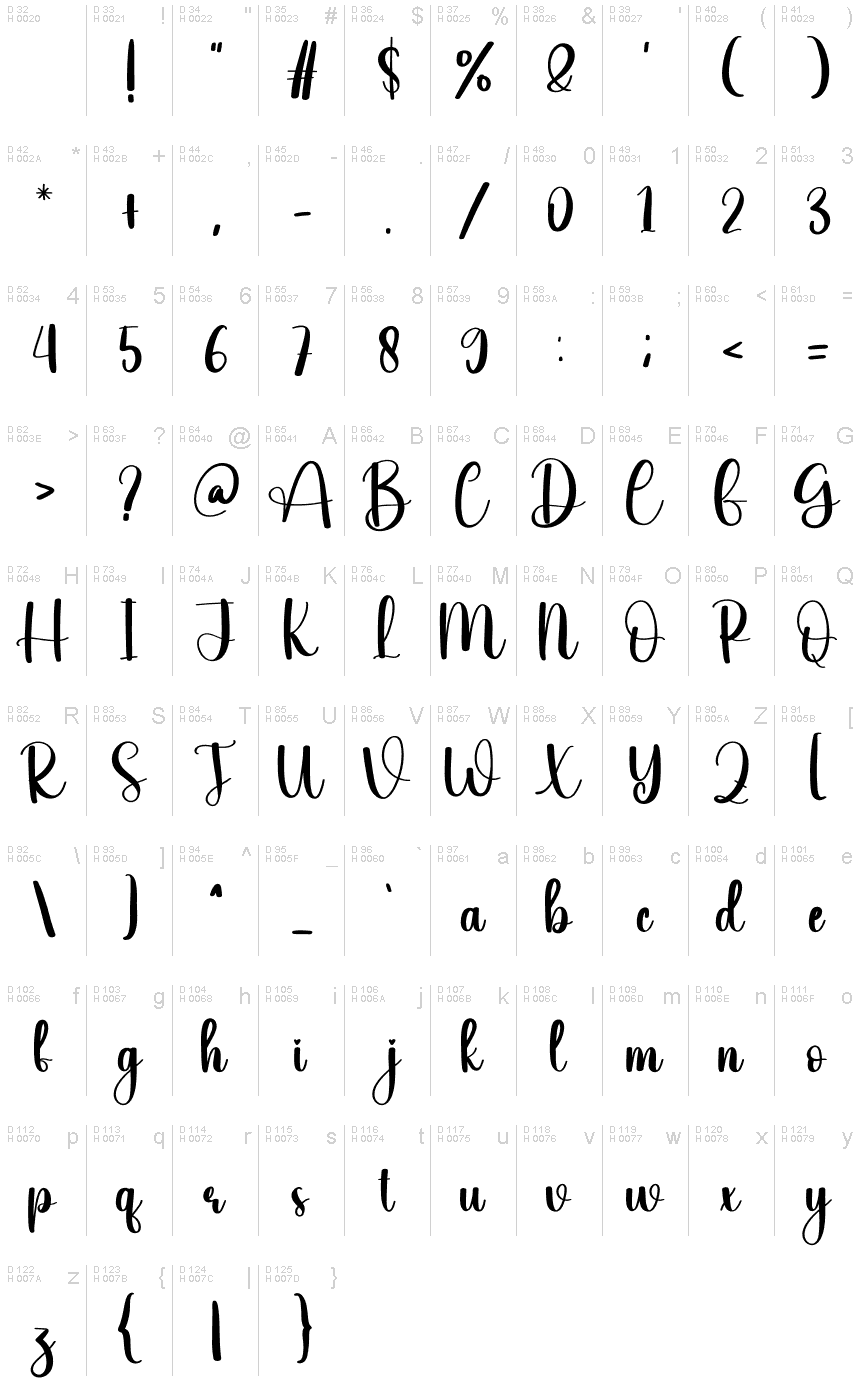
Wedding Dress
Wedding Dress, a creation by Scratchones, is a font that embodies the grace and elegance of calligraphy. Its sweeping curves and fine lines evoke the sophistication of handwritten invitations, making it an impeccable choice for those special occasions that demand a touch of class. The fluidity of its characters adds a personal and intimate feel to any project, while its balanced proportion ensures legibility and harmony in design.
Crafted with meticulous attention to detail, Wedding Dress stands out for its aesthetic appeal that captures the timeless beauty inherent in traditional calligraphy. Its style is versatile enough to enhance not just wedding stationery but also upscale branding, elegant packaging designs, and bespoke event materials.
Whether you're aiming to infuse romance into your creative work or looking for a font that speaks the language of love and luxury, Wedding Dress offers an artistic flair that can transform the ordinary into something memorably exquisite.